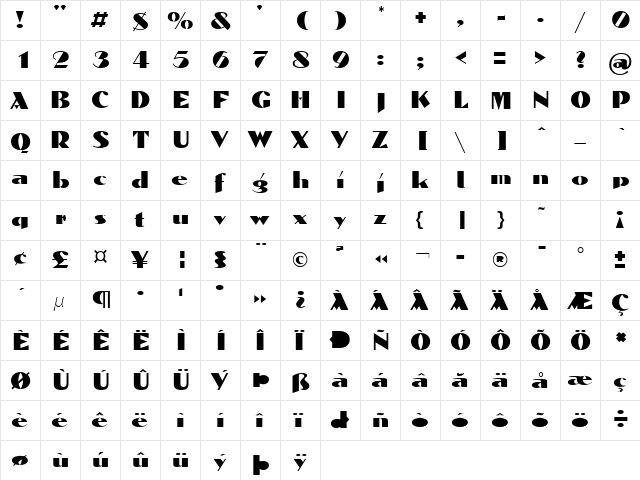
Dominon Lite Normal
Design Context for Dominon Lite Typeface
Dominon Lite is a composed and adaptable typeface that performs quietly and consistently across a wide range of design contexts.